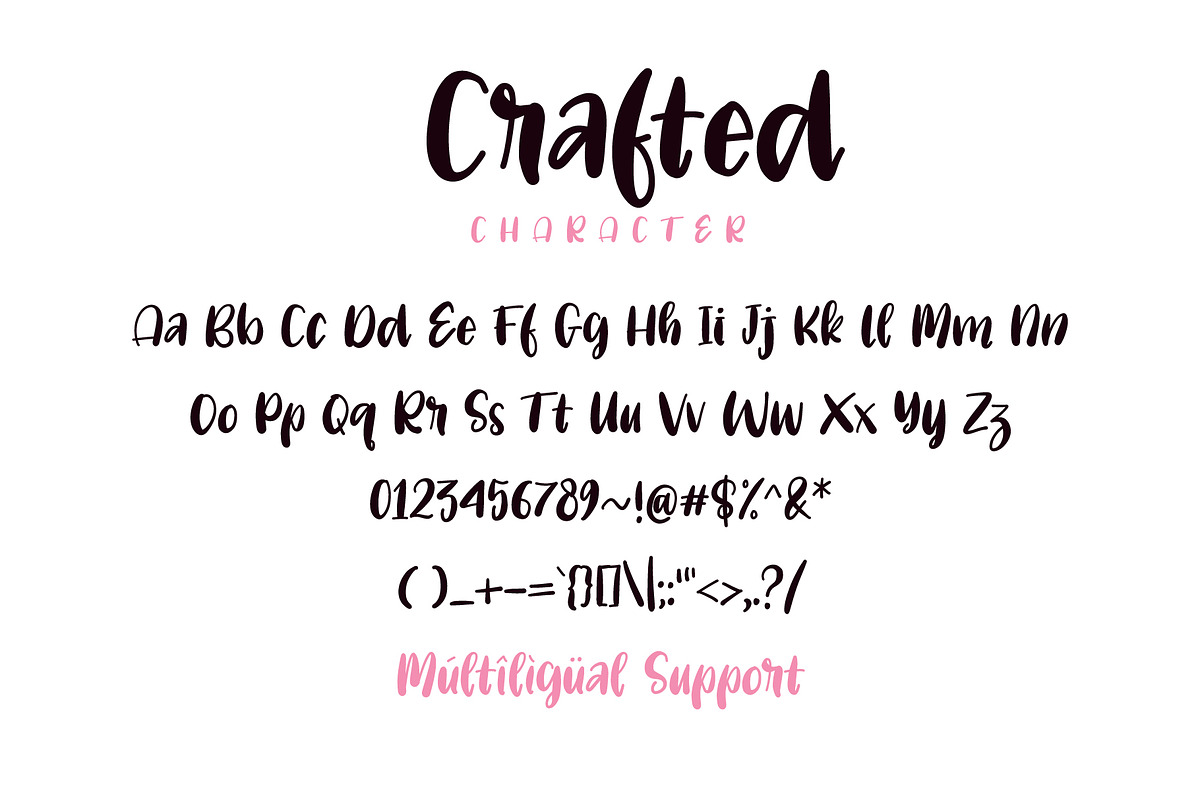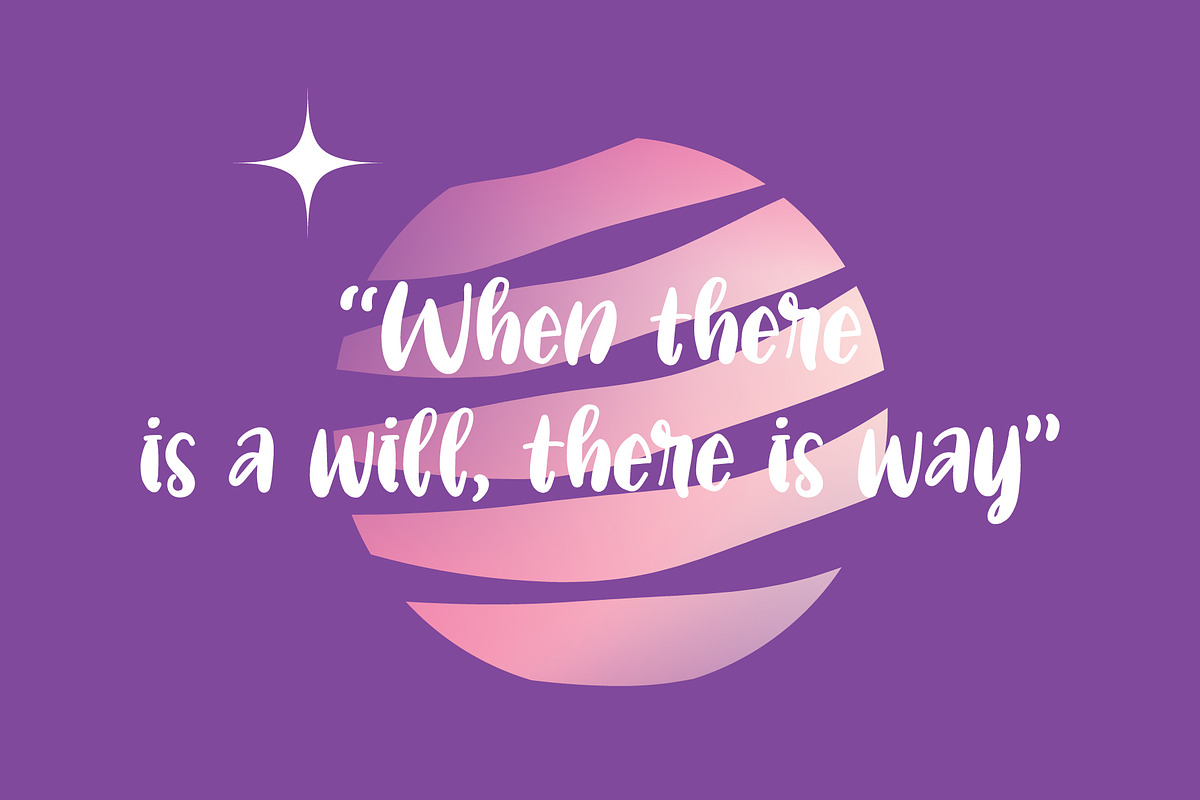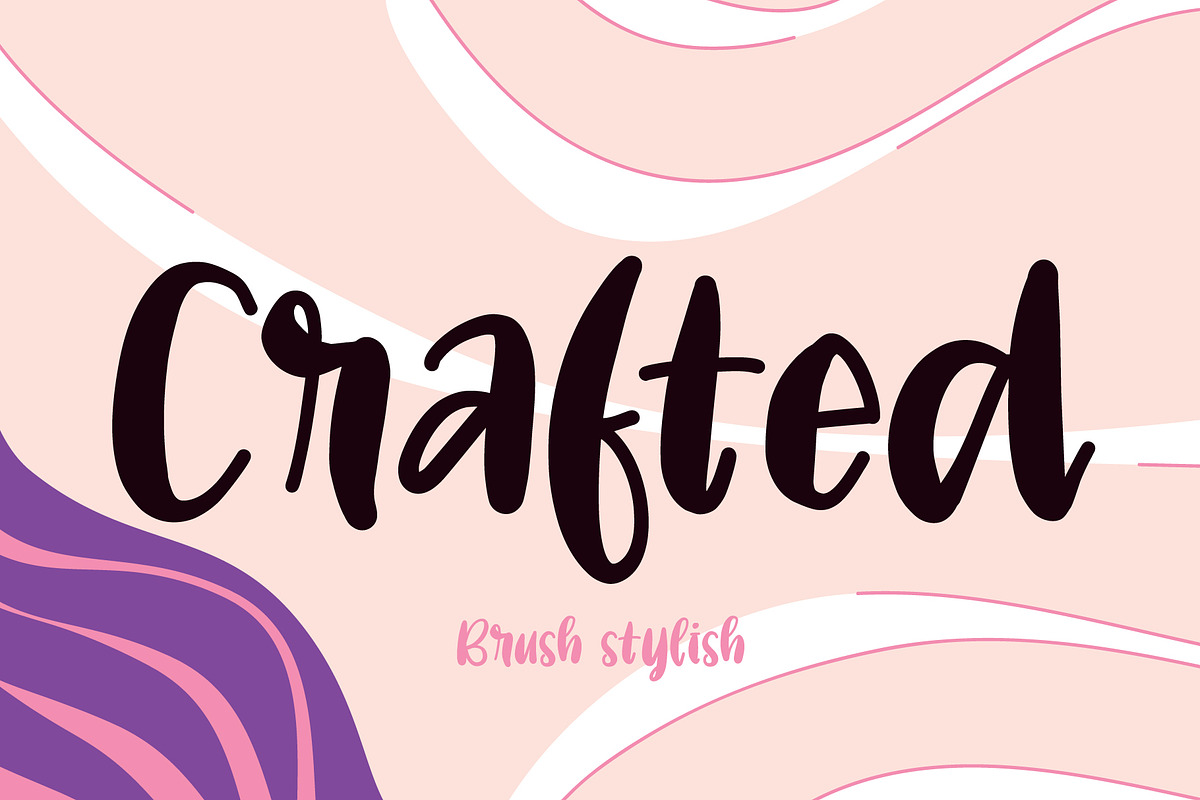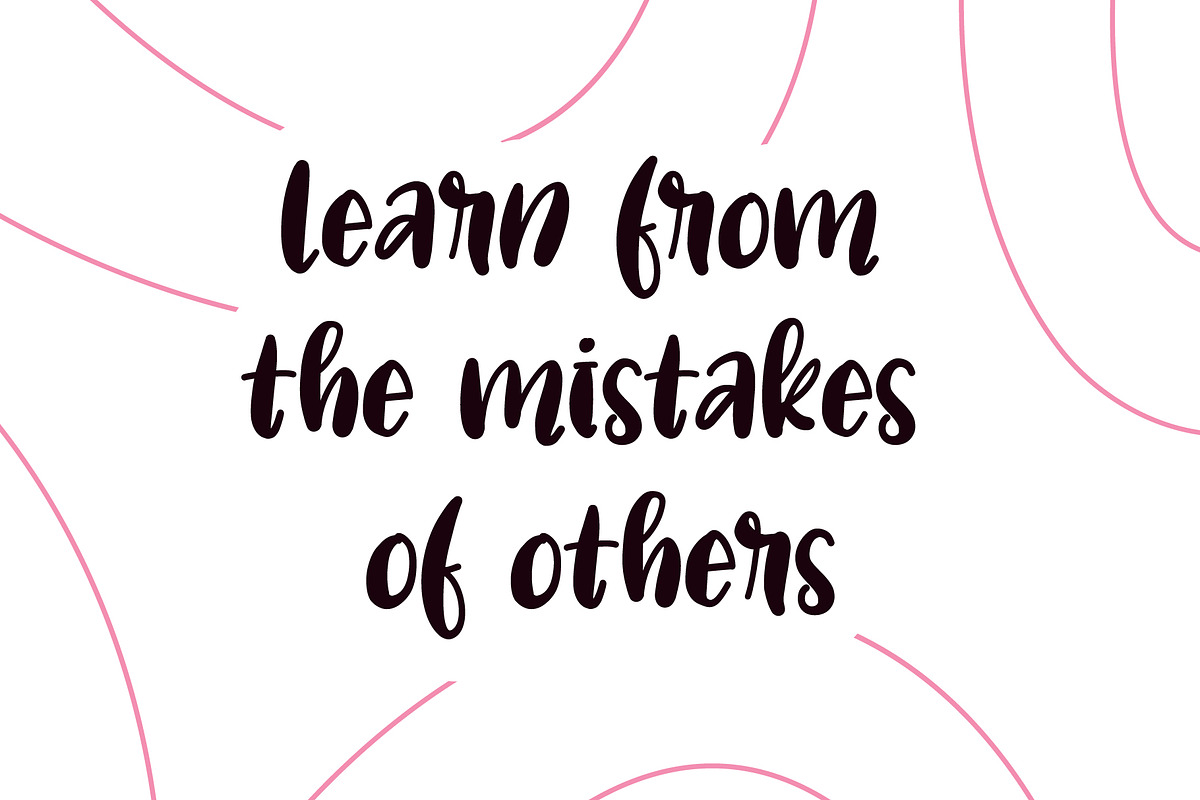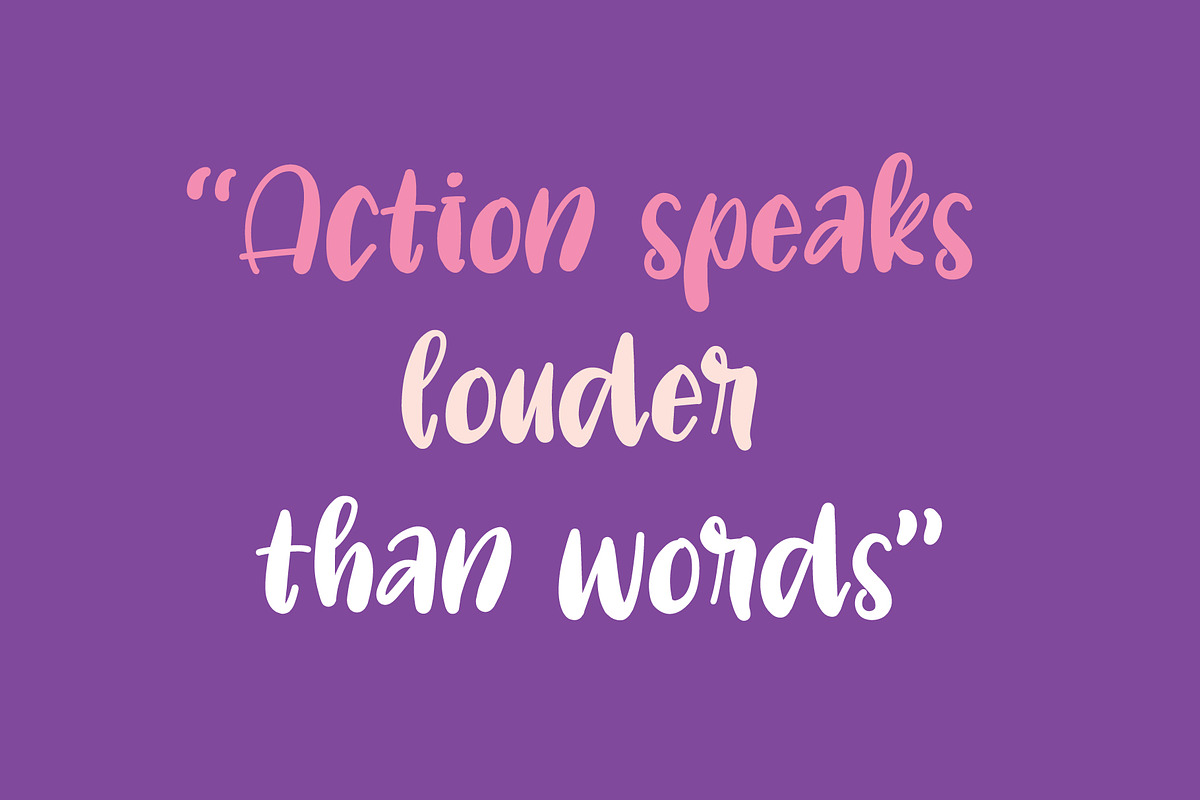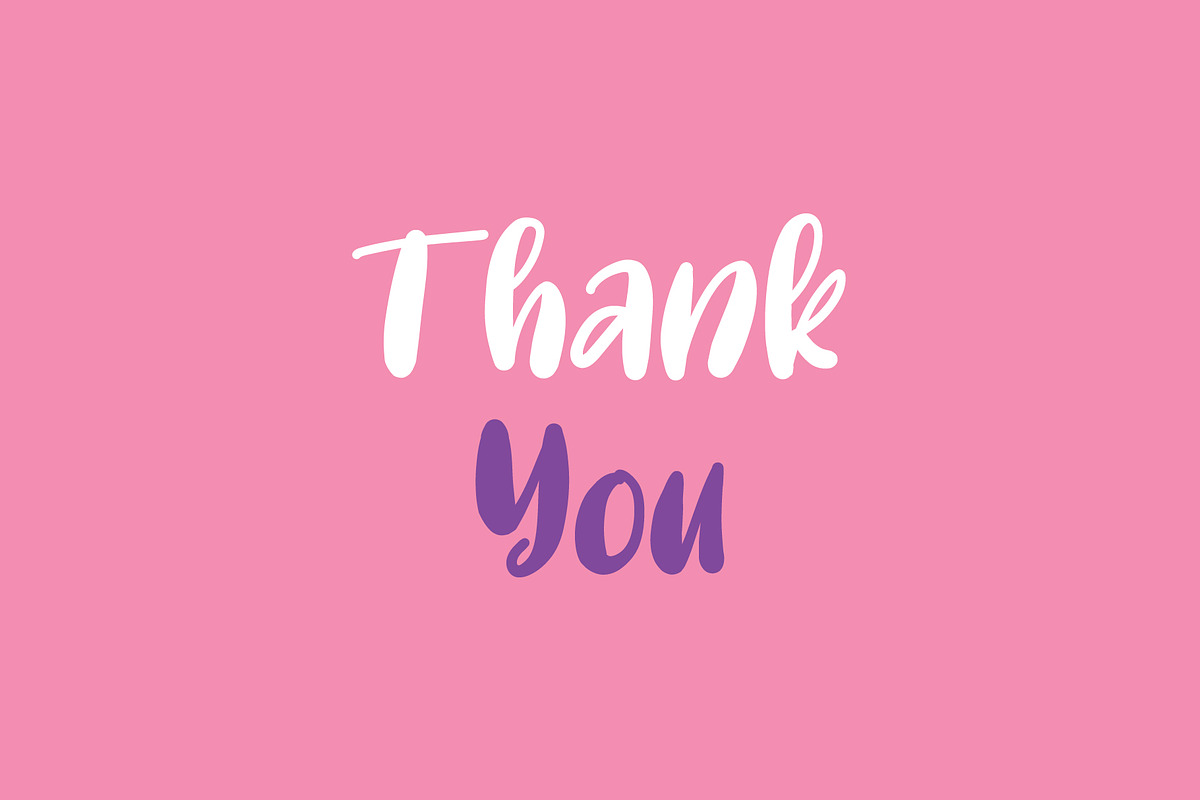
Crafted – Stylish Handwritten Brush
Introducing Crafted, a modern and stylish brush script font designed to elevate your creative projects. With its bold, hand-lettered strokes and smooth curves, this font is perfect for adding a personal, handcrafted touch to your designs.
Crafted works beautifully for:
Logo designs
Branding projects
Greeting cards
Wedding invitations
Posters and prints
Packaging
and more!
The font features a casual yet refined brush style, making it ideal for both feminine and bold aesthetics. Its natural flow and brush texture bring warmth and authenticity to any layout.
Uppercase & lowercase letters
Whether you're a designer, blogger, or business owner, Crafted is the perfect choice to make your typography stand out with elegance and personality.